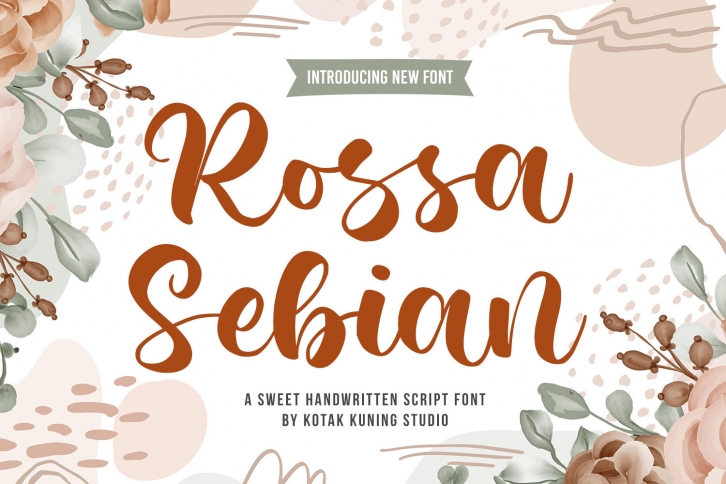
Rossa Sebian is a round lettered and sweet calligraphy typeface with characters that dance along the baseline. It will add a luxury spark to any design project that you wish to create!